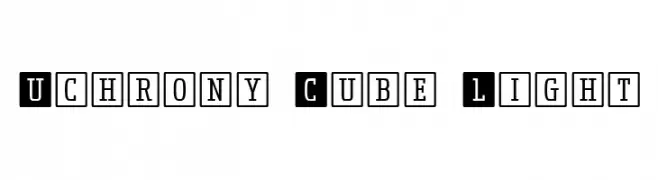
( Uchrony is a condensed proportion slab serif typeface. The font family is made up of 3 styles, Roman, Small Caps & Italics, with 6 weights each (Extra Light, Light, Regular, Medium, Bold and Extra Bold). )
A bold, boxed font with a modern and structured design.